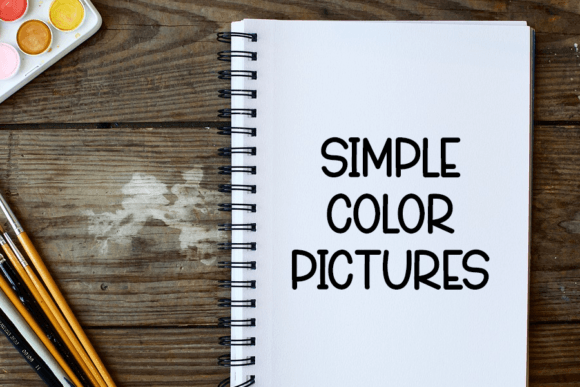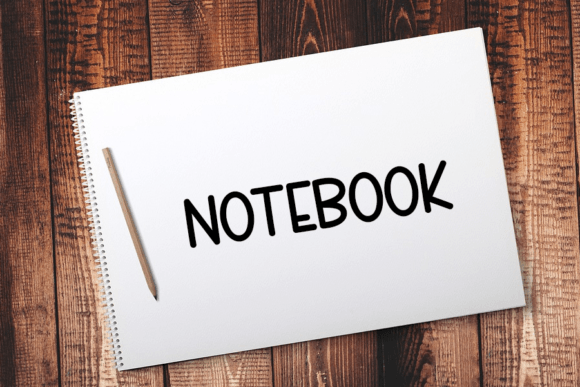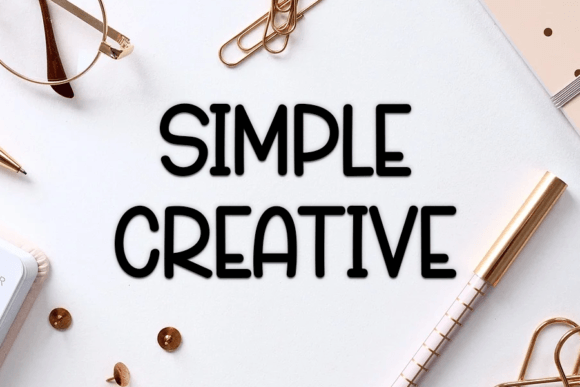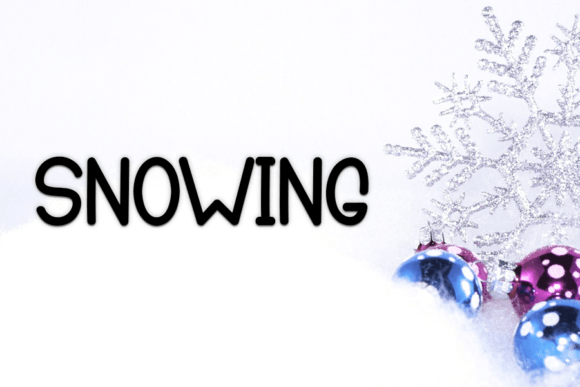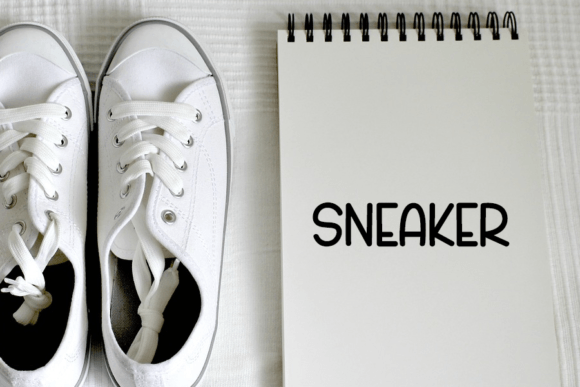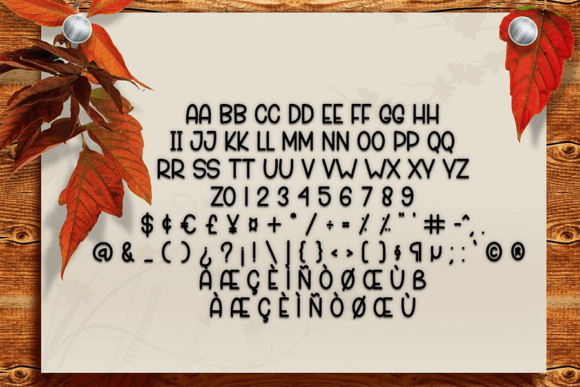
Introduction to Homework Font Font
Do you ever find yourself scribbling down ideas for a creative project on a sticky note, only to have it get lost in the chaos of your workspace? I know I do. That’s why I’m excited to introduce you to the perfect solution: Digital Paper, a high-quality, modern handwritten display font that’s about to become your new go-to design resource.
With its beautiful, high-quality texture and transparent background, Digital Paper is the perfect addition to any creative project. Whether you’re working on a presentation, crafting greeting cards, or designing a website, this font has the potential to elevate your work to the next level. And the best part? It’s available for free download, making it an accessible resource for designers of all levels.
Key Features of Homework Font Font
- High-quality, unique font design perfect for creative projects, including school assignments and presentations.
- Transparent background, allowing for seamless integration with any design or image.
- Designed with a modern aesthetic, making it suitable for a wide range of creative projects and applications.
- Perfect for use in educational materials, such as textbooks, worksheets, and study guides, as well as for general design and creative projects.
Honest Review: Homework Font Font
I recently stumbled upon Homework Font Font while searching for a high-quality font to use in a creative project. After giving it a try, I wanted to share my thoughts on this design resource.
- ✨ The font is clean and easy to read, making it perfect for body text in documents or presentations.
- ✨ The transparent background feature allows for seamless integration with any design, giving it a modern touch.
- ⚠️ The font selection is limited, and I couldn’t find a bold or italic version of the font, which might be a drawback for some designers.
- ⚠️ The font doesn’t support all languages, which could be a concern for international design projects.
Overall, I’m impressed with Homework Font Font’s simplicity and versatility. While it may not be the perfect font for every project, it’s a great addition to any designer’s toolbox. With a little creativity, you can achieve some amazing results using this font. I’d definitely recommend it as a free design resource, but be aware of its limitations.
The Homework Font Font is a versatile design resource suitable for various projects, including school assignments, presentations, and creative portfolios. You can also use it to create eye-catching titles, headings, or body text for your blog or website.